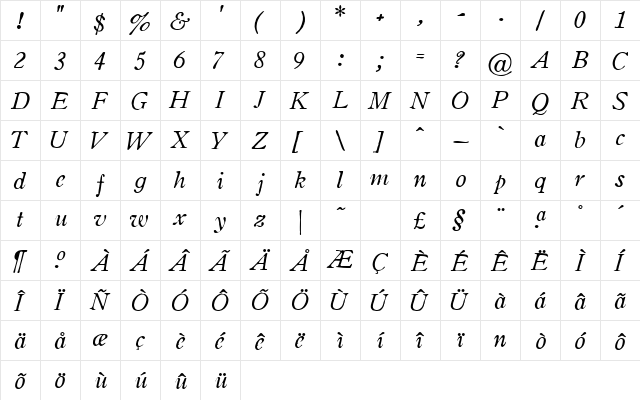
Oldstyle Italic HPLHS
Design Context for Oldstyle Italic Typeface
Oldstyle Italic carries the refined structure of traditional serif typography, with bracketed terminals and considered proportions that communicate credibility and craft. The dynamic lean of this cut emphasises speed and emphasis in any layout.
Pro Tip: Use Oldstyle Italic for editorial body copy and considered headline work. Pair with a neutral sans for UI elements or captions to create a classic hierarchy.